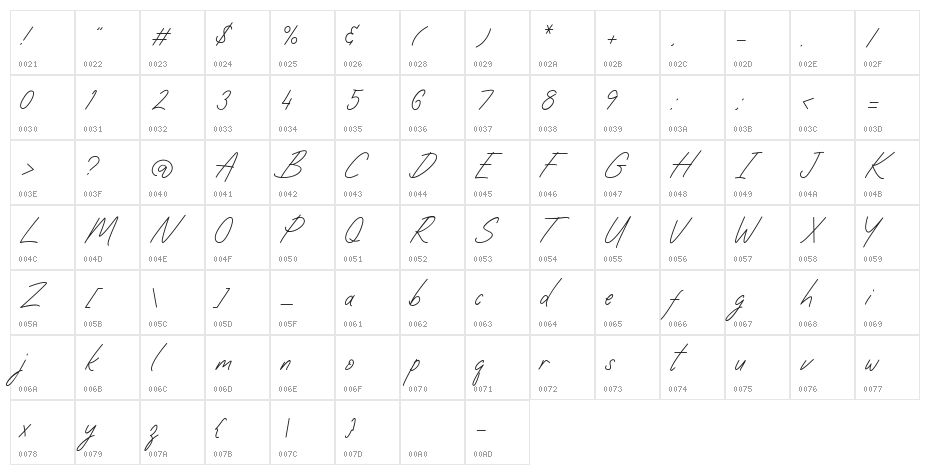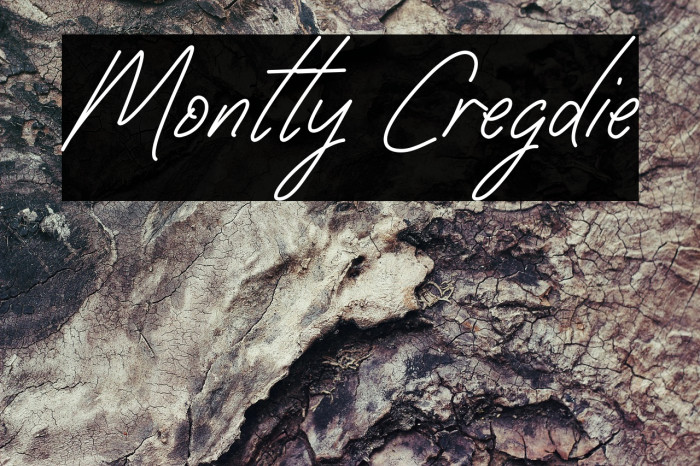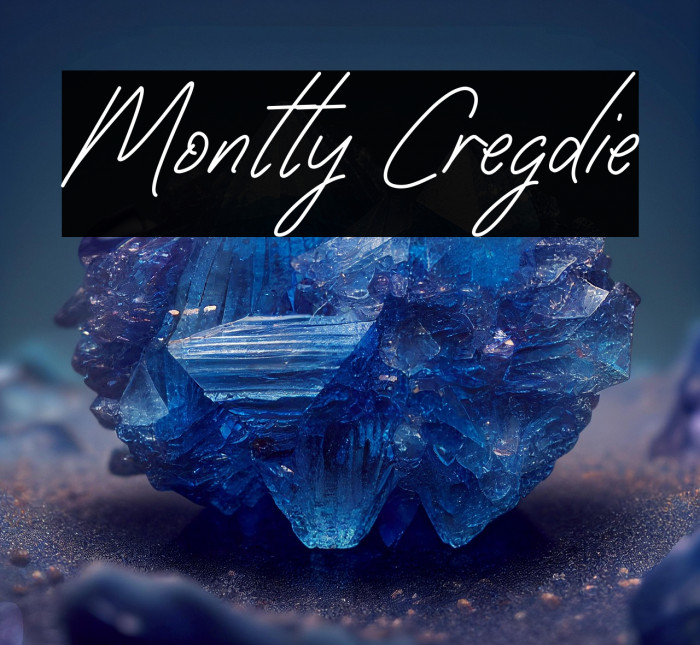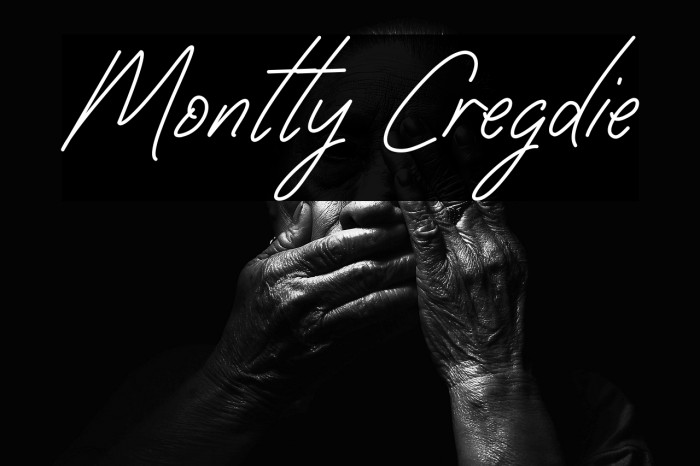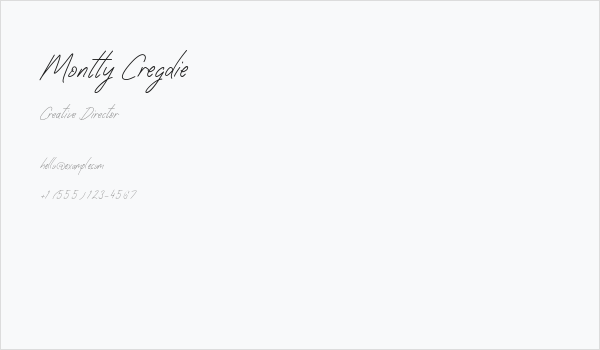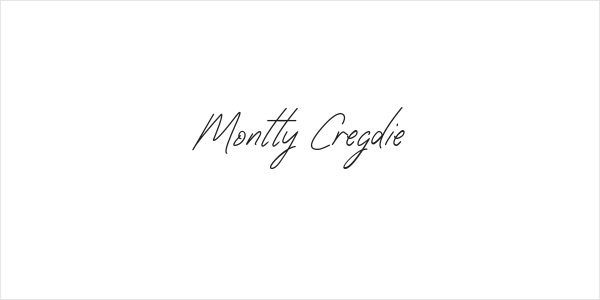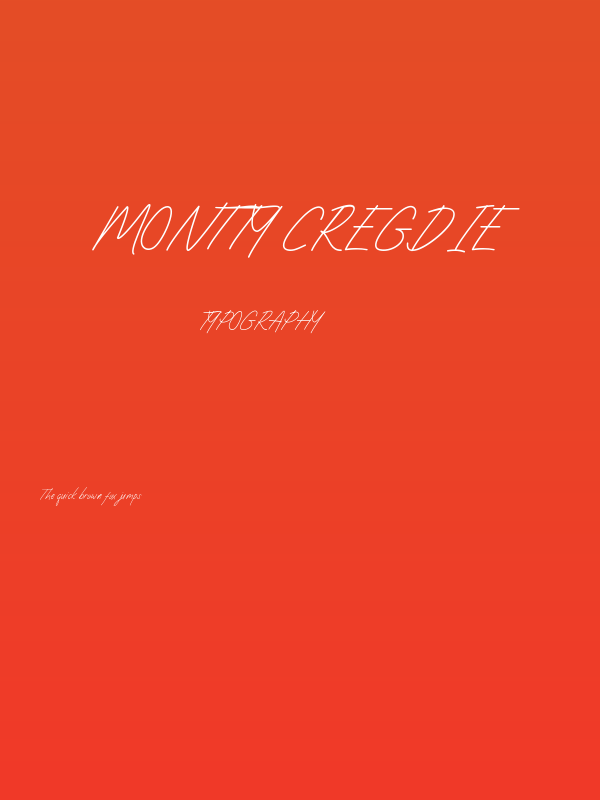
Montty Cregdie Font
Montty Cregdie Description
This font exudes a fluid and elegant script style, characterized by its smooth, flowing lines and a handwritten appearance. The letters are connected, creating a seamless and continuous look that mimics natural handwriting. The uppercase letters are slightly larger and more pronounced, while the lowercase letters maintain a consistent height, adding to the font's readability. The numerals and special characters are crafted with the same attention to detail, ensuring a cohesive overall design. This font's graceful curves and delicate strokes make it ideal for projects that require a personal touch.
| Overall Style | Elegant, Handwritten |
| Use Case | Logos, Invitations, Personal Correspondence |
| Proposed Projects | Ideal for wedding invitations, personal letters, greeting cards, and branding materials that require a personal and elegant touch. |